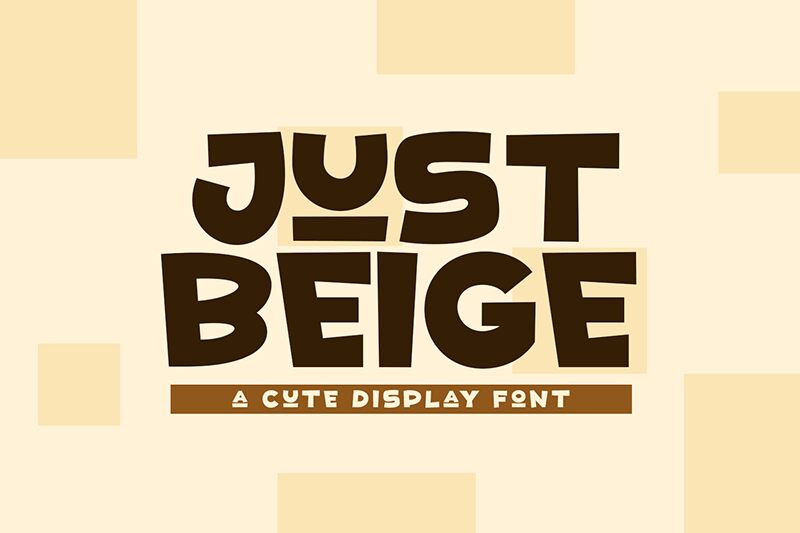
Just Beige
Just Beige font designed by Khurasan is a free display font in cartoon style inspired by retro design. The typeface has an expanded width, bold structure, and exaggerated proportions that grant it a cheerful appearance. All the other elements like thick rounded letters add to its quirky and special vibe.